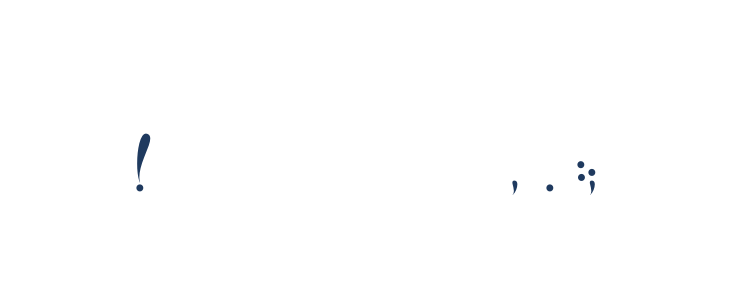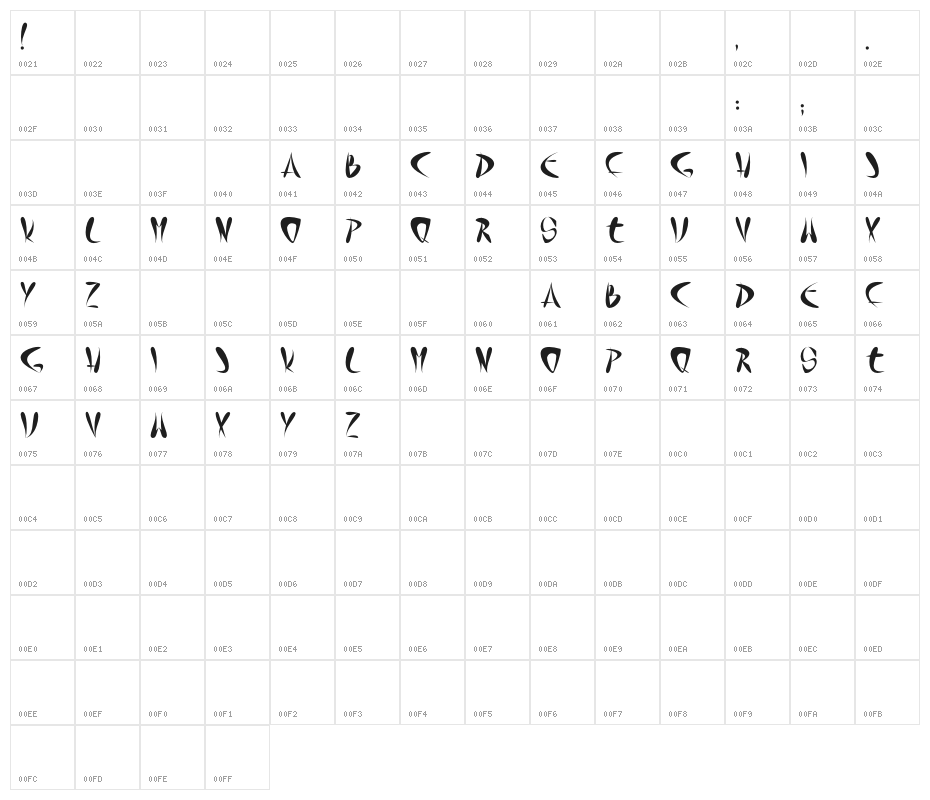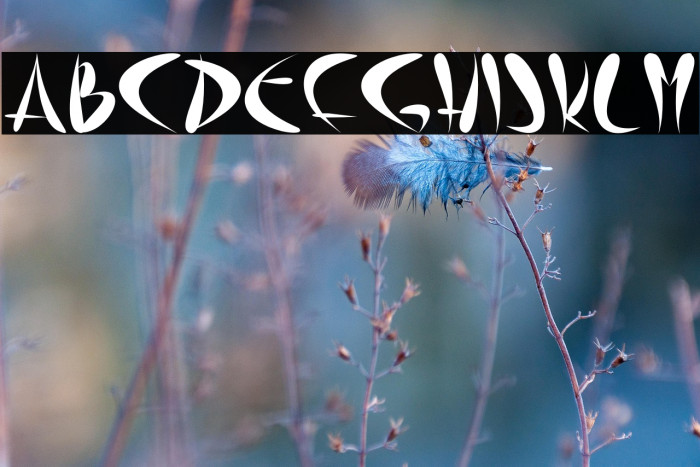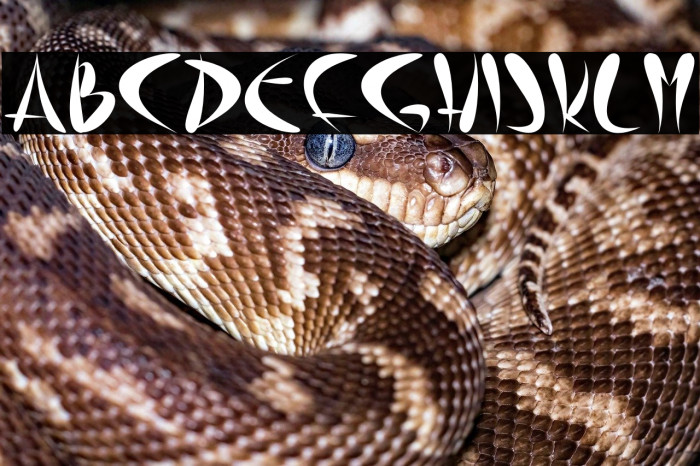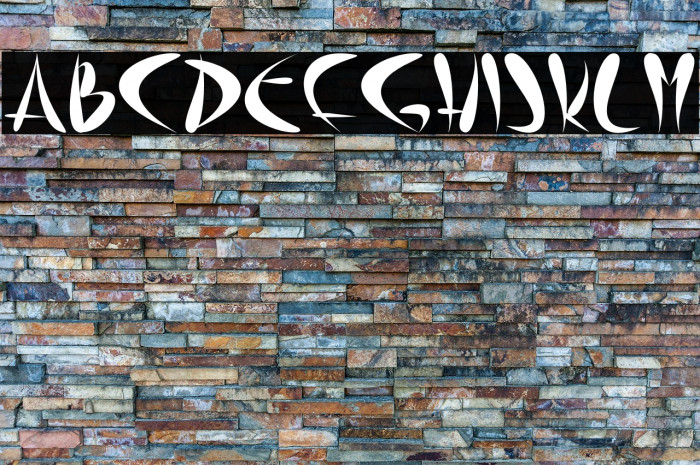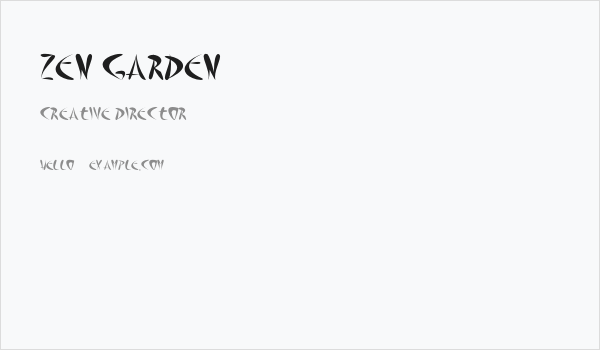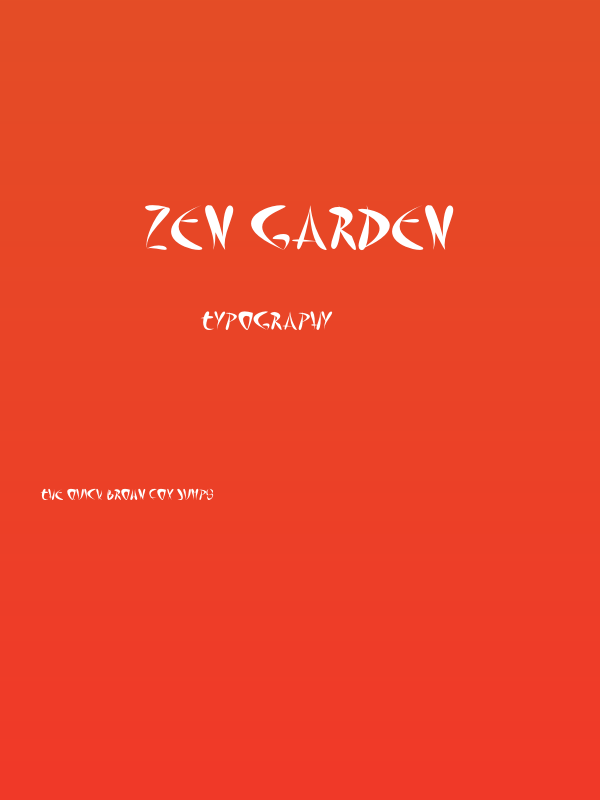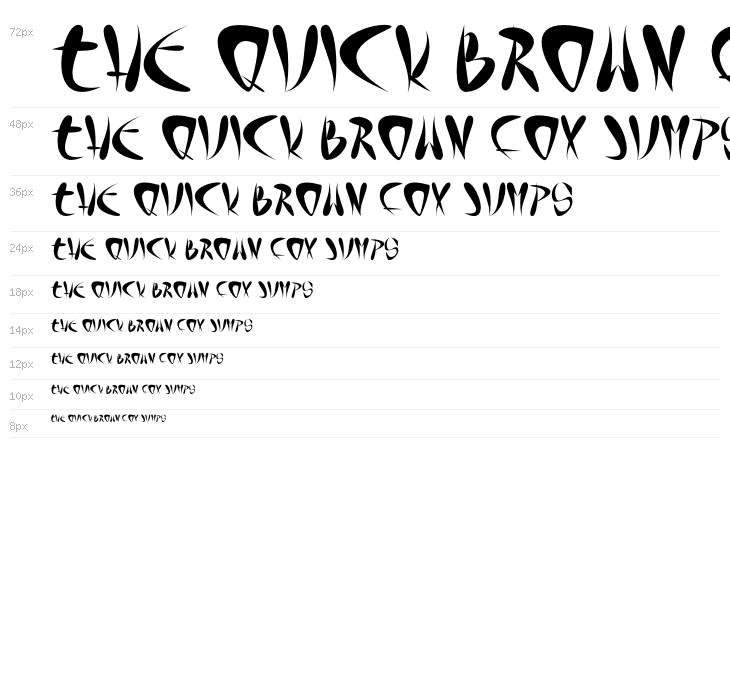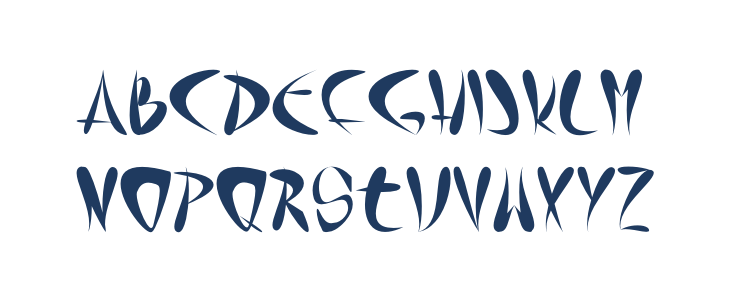
Zen Garden Font
Zen Garden Description
This font features a unique and artistic design, characterized by its sharp, angular strokes and dynamic curves. The letters have a distinct calligraphic influence, with exaggerated serifs and a flowing, organic feel. The bold, dramatic appearance makes it stand out, while the intricate details add a touch of elegance and sophistication. The font's style is reminiscent of traditional Asian calligraphy, yet it maintains a modern edge, making it versatile for various design applications. Its striking visual impact is perfect for projects that require a bold statement.
| Proposed Projects | Ideal for branding, posters, album covers, and any design needing a bold, artistic touch. |